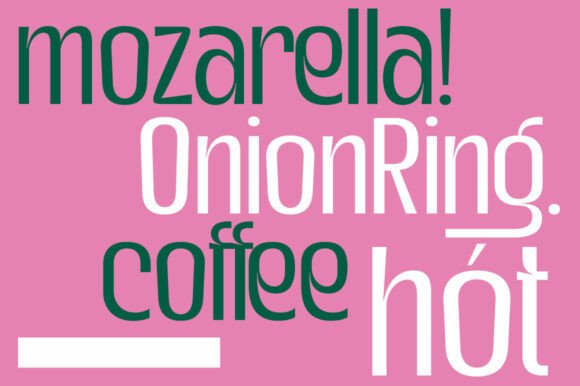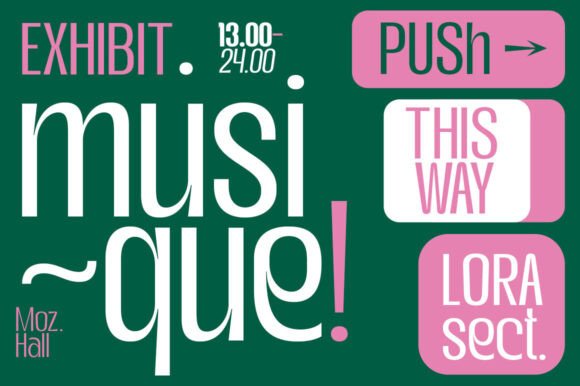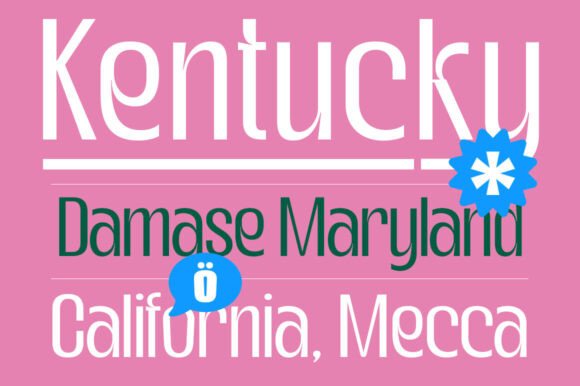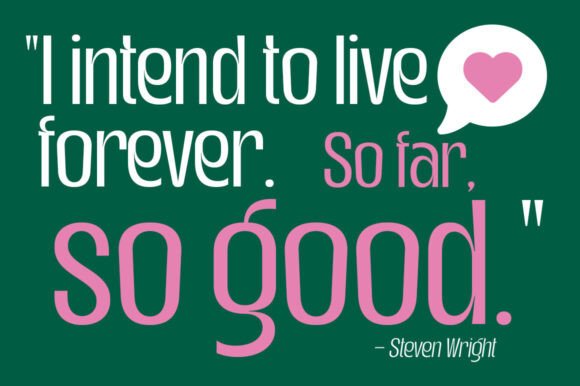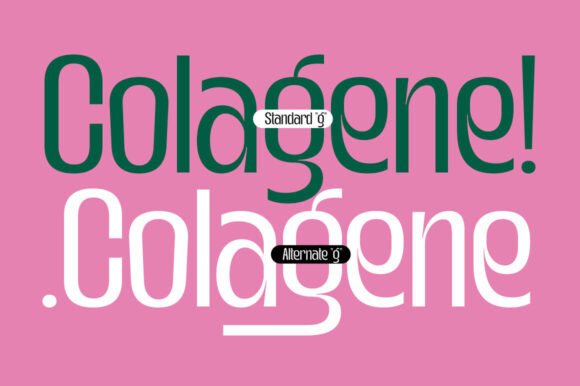
Introduction to Gotkin Font
Remember the rush of excitement you feel when discovering a game-changing design resource? For many creatives, that moment comes when they stumble upon the perfect font to elevate their project. For us, that moment came when we discovered the Gotkin Font – a strong and sophisticated sans serif font family that’s been making waves in the design community.
With its unique blend of soft curves and bold geometric shapes, Gotkin Font is the perfect addition to any creative project. Whether you’re working on a high-quality branding project, designing a magazine title, or creating a digital interface, Gotkin Font’s clean lines and versatility make it an invaluable asset. And the best part? It’s available for free download, making it accessible to designers of all levels.
Key Features of Gotkin Font
- Features a clean and modern design, perfect for use in logos, branding materials, and other visual identity elements.
- Includes multiple weights and styles, allowing designers to add depth and variety to their creative projects.
- Designed with a high-resolution output in mind, ensuring that the font looks crisp and clear at any size or resolution.
Honest Review: Gotkin Font
As a designer, I’m always on the lookout for high-quality design resources that can elevate my creative projects. Recently, I stumbled upon the Gotkin Font, and I’m excited to share my honest review with you.
- Unique and stylish design: The Gotkin Font has a distinctive, hand-drawn feel that sets it apart from more generic fonts.
- Limited character set: While the font is stylish, it’s not a full-featured font with a comprehensive character set.
- Not ideal for body text: Due to its unique design, the Gotkin Font is best suited for headlines and titles, rather than body text.
Overall, I’m impressed with the Gotkin Font’s unique design and versatility. While it has some limitations, it’s a great addition to any designer’s toolkit, especially for creative projects that require a touch of elegance and sophistication.
The Gotkin Font is ideal for:
Designing posters and flyers for events and promotions.
Creating business cards and letterheads.
Developing branding materials for businesses and organizations.